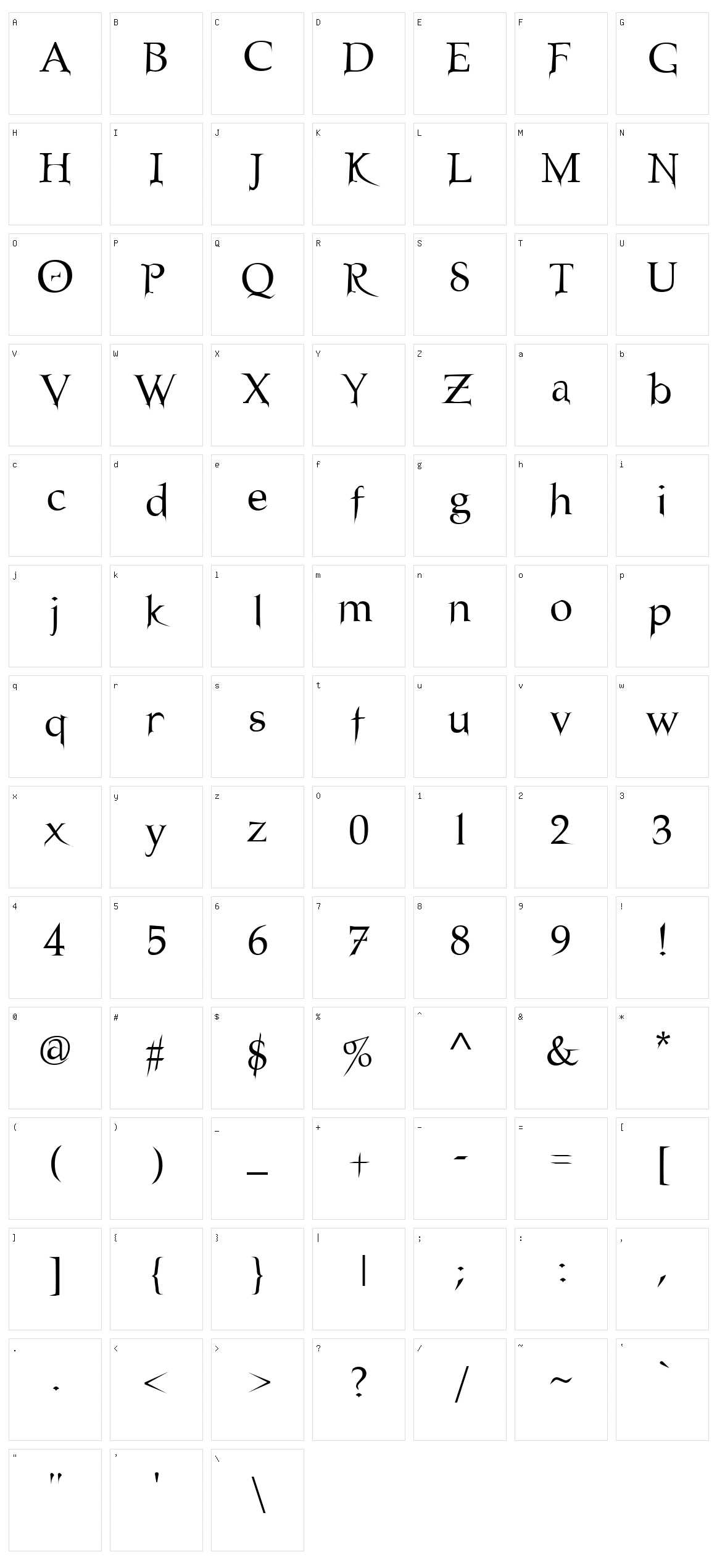
Nosferatu
Designed by: Kiwi Media
Category: Various & Gothic
Once again, Kiwi Media presents another font...
NOSFERATU
A font for the living impaired.
This font was spawned by a long weekend, too many Bauhaus albums, an issue of Permission magazine, and an NNTP connection to alt.gothic. It was fun to do. I hope it conveys that brooding sort of 1920's silent horror film feel.
Hopefully soon I'll be releasing other versions in this family, including Nosferatu oblique, Nosferatu condensed, and maybe even Nosferatu black.